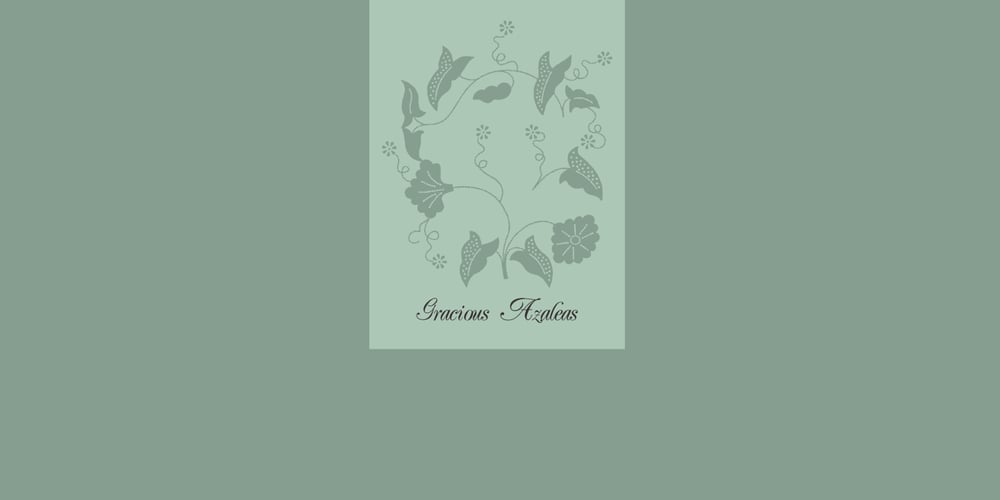
Gracious Azaleas Font Family was designed by Iza W and published by Intellecta Design. Gracious Azaleas contains 1 styles and family package options. Gracious Azaleas, the flourished ornaments typeface, was designed entirely by hand, without use of auto-tracing, by Iza W. Its well elaborated and unusual design was inspired by old cross-stitch and craft books. Good to use in arts and crafts works, books of arts, stationery, publishing stuff and many other applications. Another recherché masterpiece by Iza W from Intellecta Design.